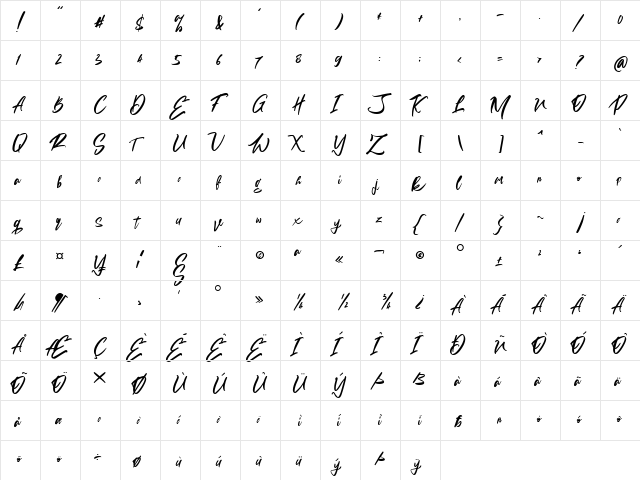
Aliva Brush Script Regular
Design Context for Aliva Brush Script Typeface
Aliva Brush Script flows with the natural rhythm of handwritten lettering, making it ideal for designs that call for warmth and personal expression.
Font Pairing: Combine Aliva Brush Script with a simple geometric sans for maximum contrast — the tension between flowing curves and clean structure is a classic typographic pairing.
Pro Tip: Pair Aliva Brush Script with a clean sans-serif for supporting text. The contrast between fluid script and geometric structure creates an elegant typographic hierarchy.